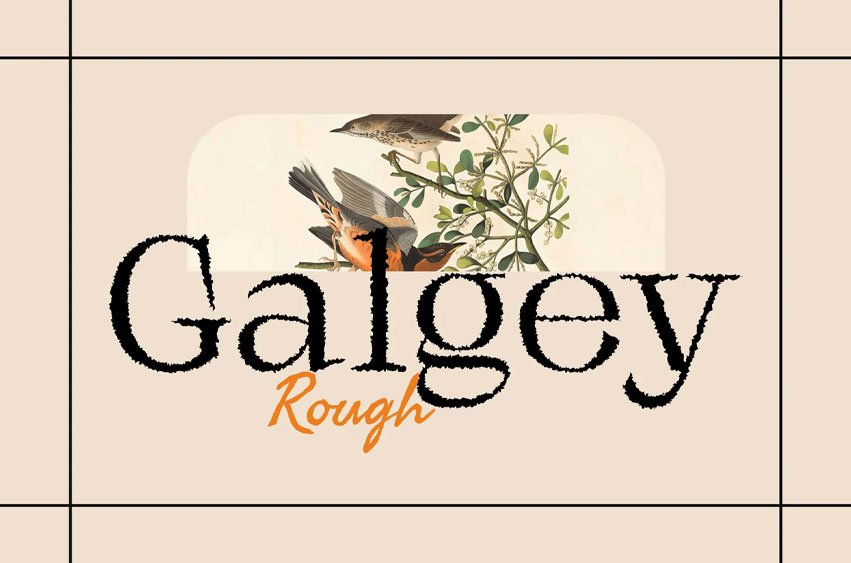
Galgey Rough Font Subtle Serif Charm Galgey Rough presents a display font with thin serif forms, exuding a delicate and refined aesthetic. Its moderate contrast adds sophistication to any design project.
Rough Texture for Character The font’s rough effect lends it a unique character, enhancing its visual appeal and providing a touch of rustic charm. Each letter carries a distinct texture, adding depth to the overall design.
Perfect for Display Purposes Tailored for display applications, This font shines in various contexts, from branding materials to web banners. Its delicate serifs and rough texture make it an ideal choice for catching the eye.
Versatile and Impactful Despite its thin serif forms, This font delivers impactful results across different design projects. Its versatility allows for seamless integration into diverse visual compositions.
Subtle Sophistication This font offers a unique blend of delicate serif forms and rustic rough texture, making it a versatile choice for display typography. With its understated elegance, this font adds character and charm to any design endeavor, promising captivating visuals that leave a lasting impression.